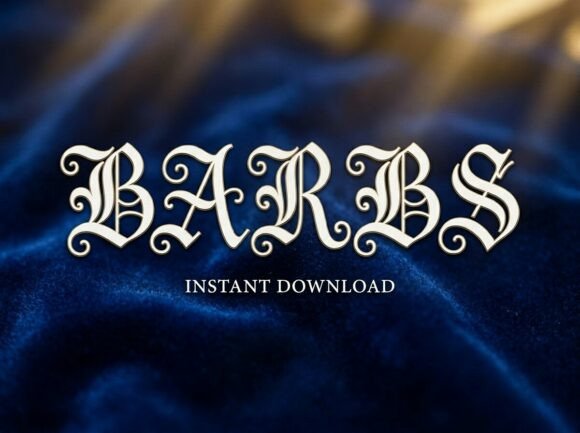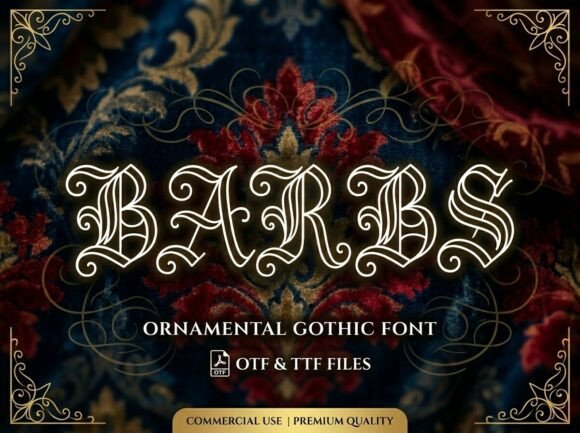
Unlock the Elegance of the Past with Barbs Font
Are you looking for a typeface that exudes luxury, sophistication, and a touch of vintage grandeur? Look no further than Barbs Font, a masterful display typeface that captures the essence of a bygone era. With its bold, classical serif letterforms, lavish filigree, and exquisite engraved patterns, Barbs is the perfect choice for designers and crafters seeking to add a touch of elegance to their projects.
The Regal Soul of Barbs
Barbs Font is a true masterpiece, boasting a regal and Victorian soul that is sure to impress. Its high-contrast structural weight and opulent antique personality make it the ideal choice for projects that demand a sense of luxury and refinement. Whether you’re working on independent luxury distillery branding, high-end book cover illustrations, artisanal boutique signage, or high-impact social media headers, Barbs is the premier choice for designers seeking to make a statement.
Key Features of Barbs Font
- Classical Serif Letterforms: Barbs features bold, classical serif letterforms that are reminiscent of a bygone era.
- Lavish Filigree: The font is lavishly filled with rhythmic filigree, adding an extra layer of elegance and sophistication.
- Spiral Flourishes: Barbs also features spiral flourishes that add a touch of whimsy and refinement.
- Exquisite Engraved Patterns: The font boasts exquisite engraved patterns that add a level of detail and craftsmanship.
- High-Contrast Structural Weight: Barbs has a high-contrast structural weight that gives it a sense of luxury and refinement.
Perfect for Luxury Branding and Design
Barbs Font is the perfect choice for designers seeking to create luxury brands that exude elegance and sophistication. Its opulent antique personality and high-contrast structural weight make it ideal for:
- Independent Luxury Distillery Branding: Barbs is perfect for creating labels and branding materials for luxury distilleries.
- High-End Book Cover Illustrations: The font is ideal for creating eye-catching book covers that demand attention.
- Artisanal Boutique Signage: Barbs is perfect for creating signage that reflects the elegance and sophistication of artisanal boutiques.
- High-Impact Social Media Headers: The font is ideal for creating high-impact social media headers that demand attention.
Tips for Using Barbs Font
To get the most out of Barbs Font, here are a few tips to keep in mind:
- Use it sparingly: Due to its bold and ornate nature, it’s best to use Barbs sparingly to avoid overwhelming the reader.
- Pair it with a simple font: Pair Barbs with a simple font to create contrast and make it stand out.
- Experiment with colors: Barbs looks great in a variety of colors, so don’t be afraid to experiment and find the perfect hue for your project.
In conclusion, Barbs Font is a masterful display typeface that captures the essence of a bygone era. With its bold, classical serif letterforms, lavish filigree, and exquisite engraved patterns, Barbs is the perfect choice for designers and crafters seeking to add a touch of elegance to their projects. Whether you’re working on luxury branding, book covers, or social media headers, Barbs is sure to impress.